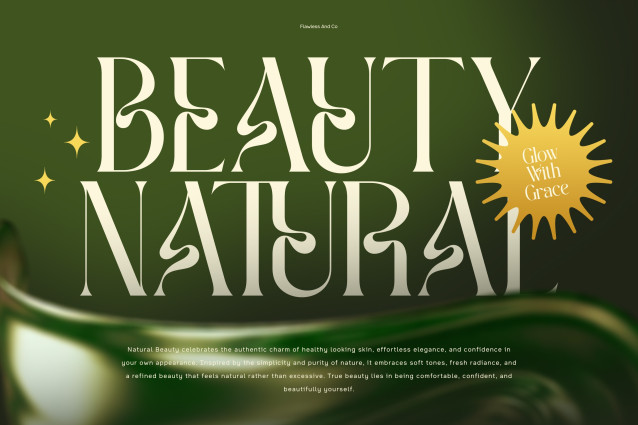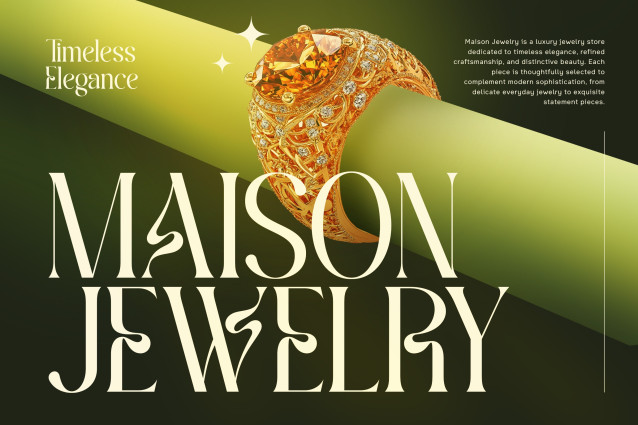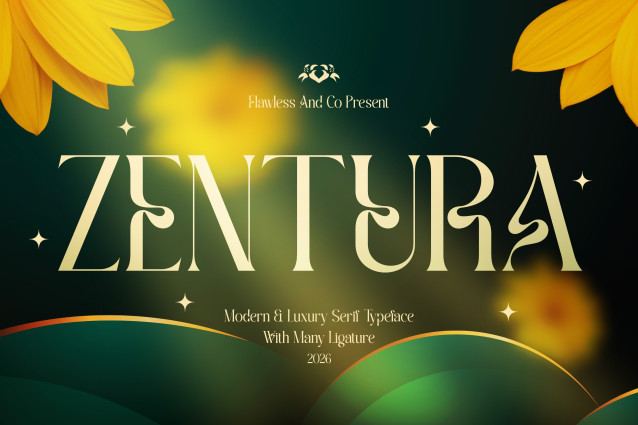
Zentura – Modern Luxury Serif Font
Zentura is a sophisticated modern luxury serif font that combines elegant high-contrast letterforms with a refined and graceful character. Its slender proportions, stylish curves, and distinctive ligatures create a timeless yet contemporary aesthetic, making every word feel polished and premium. Designed to bring elegance and visual sophistication to your projects, Zentura works beautifully for luxurious branding, fashion identities, editorial layouts, and refined display typography. Whether you’re creating a high-end logo, beauty packaging, wedding stationery, or an elegant headline, Zentura adds a classy and memorable touch to every design.